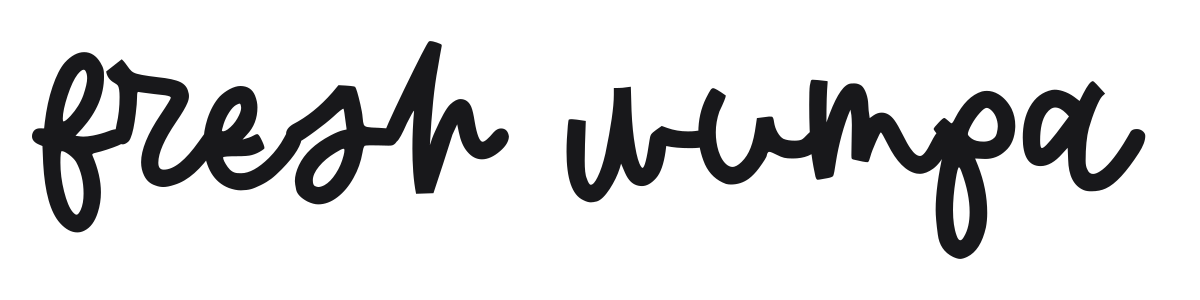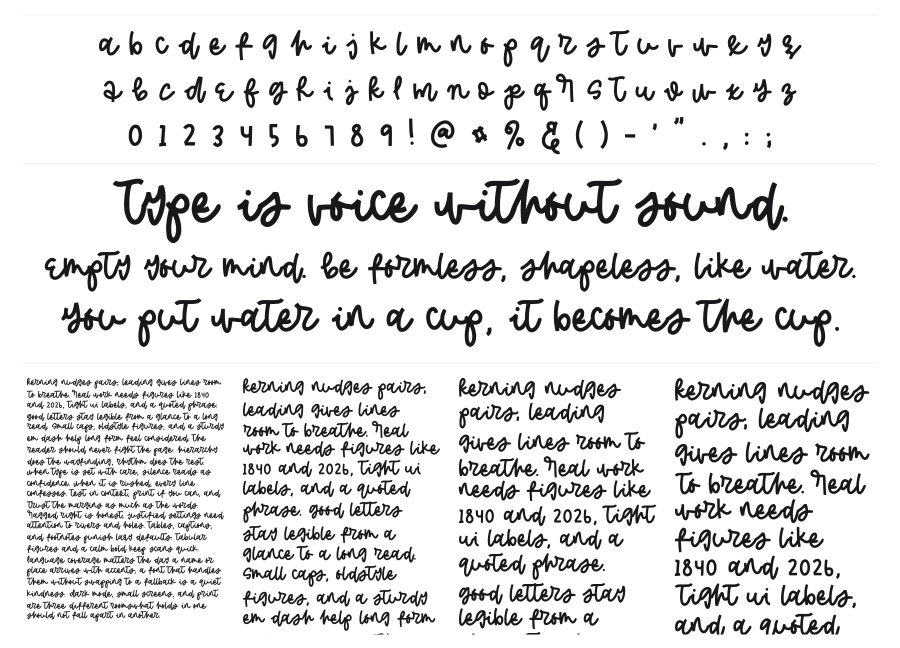
Fresh Wumpa
by Abo Daniel Studio · Website
Fresh Wumpa is a casual connected script with the loose energy of confident hand-lettering. Smooth flowing strokes and natural rhythm give it a fresh, approachable personality that works well for brand identities, packaging, and social content. It leans playful without tipping into childish.